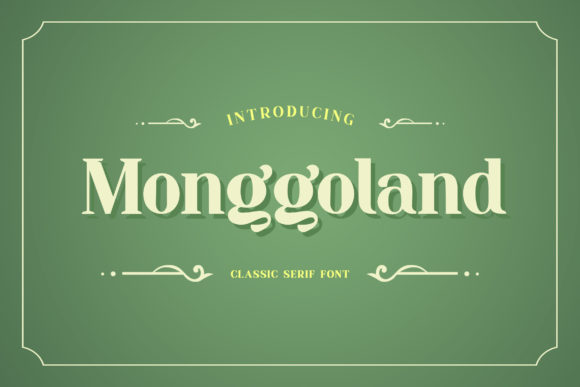
Monggoland: A Bold Serif for Modern Editorial Design
The cursor hovered over the cover page of a new digital lifestyle guide, the blank space demanding a voice that was both authoritative and inviting. I needed a typeface that could anchor the layout without shouting, something that felt rooted in tradition yet fresh enough for a modern audience. In that quiet moment of design decision-making, I turned to Monggoland. As I tested the first headline, it became clear why this specific Serif has been gaining traction among independent publishers and creative directors. Monggoland is bold and natural serif font, offering a visual weight that commands attention while maintaining an organic, hand-crafted rhythm that feels incredibly human.
Using Monggoland for Branding Designs and Logo Concepts
When exploring how Monggoland functions as a foundational element for brand identity, its character immediately distinguishes itself from generic Fonts found in standard software libraries. The letterforms possess a distinct personality; they are not merely shapes but carriers of mood. For branding designs, particularly those aiming for a premium or artisanal feel, this Serif provides the necessary gravitas. I recently applied it to a mock-up for a boutique coffee roaster, and the way the bold strokes interacted with negative space created an instant sense of quality and heritage. Unlike overly decorative scripts that can clutter a logo, Monggoland remains legible at small scales while retaining its structural integrity when scaled up for signage or packaging. It bridges the gap between a display font and a functional typeface, making it an excellent choice for creators building a cohesive visual language across multiple touchpoints.
Monggoland for Wedding Invitations and Elegant Event Stationery
In the realm of personal publishing, the stakes for typography are high; every letter must convey warmth and celebration. When designing wedding invitations, I found that Monggoland offered a perfect balance of formality and approachability. Its natural curves soften the rigid lines often associated with traditional Serif fonts, creating an elegant invitation suite that feels curated rather than templated. The bold weight ensures that names and dates stand out clearly on textured paper, while the natural flow of the characters adds a subtle, romantic undertone. This makes Monggoland ideal for couples seeking a modern aesthetic that still honors classic traditions. Whether used for the main header or paired with a delicate script for details, this font elevates the entire stationery package, ensuring the event's identity is communicated before a single word is read.
Monggoland in Website Designs and Digital Headers
Transitioning from print to screen, the challenge shifts to readability and loading speed, yet Monggoland adapts surprisingly well to website designs. As a blogger reviewing content layouts, I noticed how effectively this Serif performs in H1 and H2 tags, drawing the eye down the page and establishing a clear hierarchy. The bold nature of the font cuts through the noise of modern web interfaces, making it an excellent choice for blog headers, article titles, and hero sections. Unlike thin serifs that can vanish on mobile devices or low-resolution screens, Monggoland maintains its presence, ensuring that your message is delivered with impact. It works particularly well in lifestyle blogs, recipe sites, and portfolio pages where the visual tone needs to be sophisticated yet accessible. By using Monggoland for key navigational elements, you create a consistent thread that guides the reader through your digital narrative without causing visual fatigue.
Structuring Content with Monggoland for Editorial Layouts
Beyond just headlines, the utility of Monggoland extends into the broader architecture of editorial layouts. When building a digital magazine or a comprehensive newsletter graphic, having a reliable set of Fonts that support visual structure is critical. I utilized Monggoland for chapter openers and pull quotes in a recent feature story, finding that its bold weight naturally creates a pause in the reading flow, signaling a shift in topic or emphasis. This helps break up dense text and keeps the reader engaged. However, it is important to note that while Monggoland excels in display roles, it is best reserved for shorter bursts of text rather than long-form body copy. Its expressive nature is meant to highlight, not to sustain hours of reading. Pairing it with a clean sans-serif or a lighter serif for body text creates a harmonious contrast that enhances readability and professional polish.
Practical Applications for Printables and Course Materials
The versatility of Monggoland also shines in the world of digital products, such as printable planners, coaching workbooks, and course PDFs. Creators in these niches need a typeface that looks professional in print but retains its charm on a tablet screen. Monggoland delivers this dual performance effortlessly. For a coaching workbook I designed, the font added a sense of authority to the section headers, making the material feel substantial and trustworthy. The natural feel of the Serif prevents the document from feeling too corporate or sterile, which is essential for wellness and self-improvement brands. When exporting these files, the bold strokes of Monggoland hold up beautifully, ensuring that even when printed on home printers, the text remains crisp and impactful. This reliability makes it a top contender for anyone selling design assets or educational materials where presentation directly influences perceived value.
Font Pairing Strategies for Maximum Readability
To truly maximize the potential of Monggoland, understanding how to pair it with other typefaces is essential. Since Monggoland is bold and natural serif font, it pairs exceptionally well with neutral sans-serif fonts for body copy, allowing the headers to take center stage without competition. Alternatively, pairing it with a complementary serif that has lighter weights can create a monochromatic, high-end editorial look. Avoid pairing it with other heavy display fonts or ornate scripts, as this can lead to visual clutter and confuse the reader. The goal is to let Monggoland do what it does best: establish mood and hierarchy. Whether you are designing a social media graphic, a product label, or a full publication, thoughtful pairing ensures that your design assets work together cohesively. Always check the included styles and licensing terms to ensure you have the commercial rights needed for your specific project, whether it's a paid newsletter or a client branding package.
Ultimately, the decision to use Monggoland comes down to the desire for a typeface that feels alive. It is not just a tool for displaying text but a partner in storytelling. From the initial spark of a logo concept to the final layout of a digital magazine, this Serif offers a unique blend of strength and grace. For designers and creators looking to elevate their projects with a font that stands the test of time and trend, Monggoland provides a robust, natural foundation that supports both modern aesthetics and timeless readability.